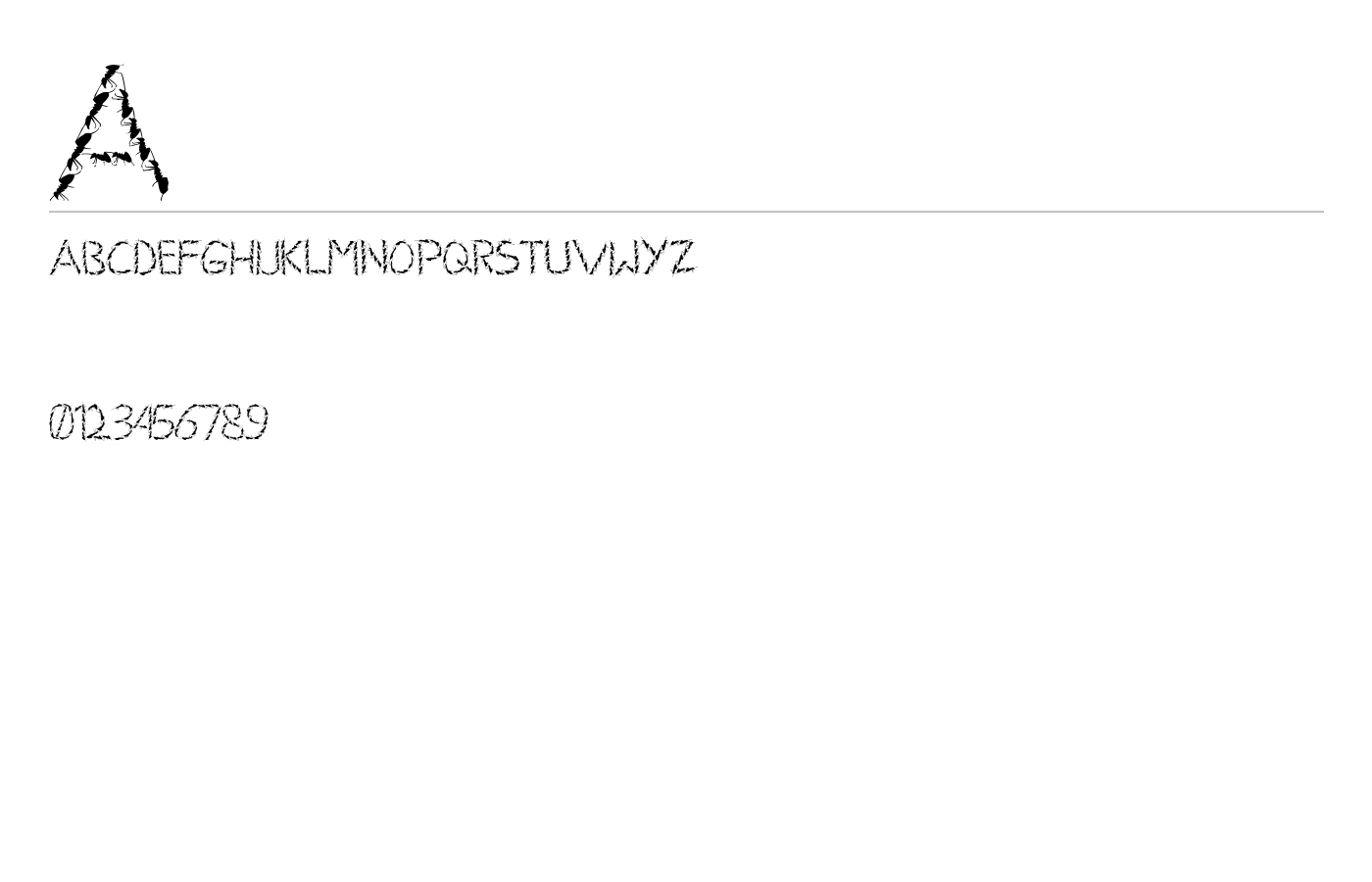
Ant Font is a creative and playful sans serif typeface that mimics the intricate and detailed movement of ants, giving it a unique, organic texture. Its thin, narrow letterforms and irregular stroke edges create a lively, handcrafted feel that is perfect for eye-catching logos, posters, or nature-themed designs seeking an adventurous and unconventional look. This font adds personality and a sense of motion, making it ideal for projects needing a distinct, artistic flair.
Ant Font
About Ant Font
| Font family | Ant Font |
| Designer | Iqbal Syiroddudin |